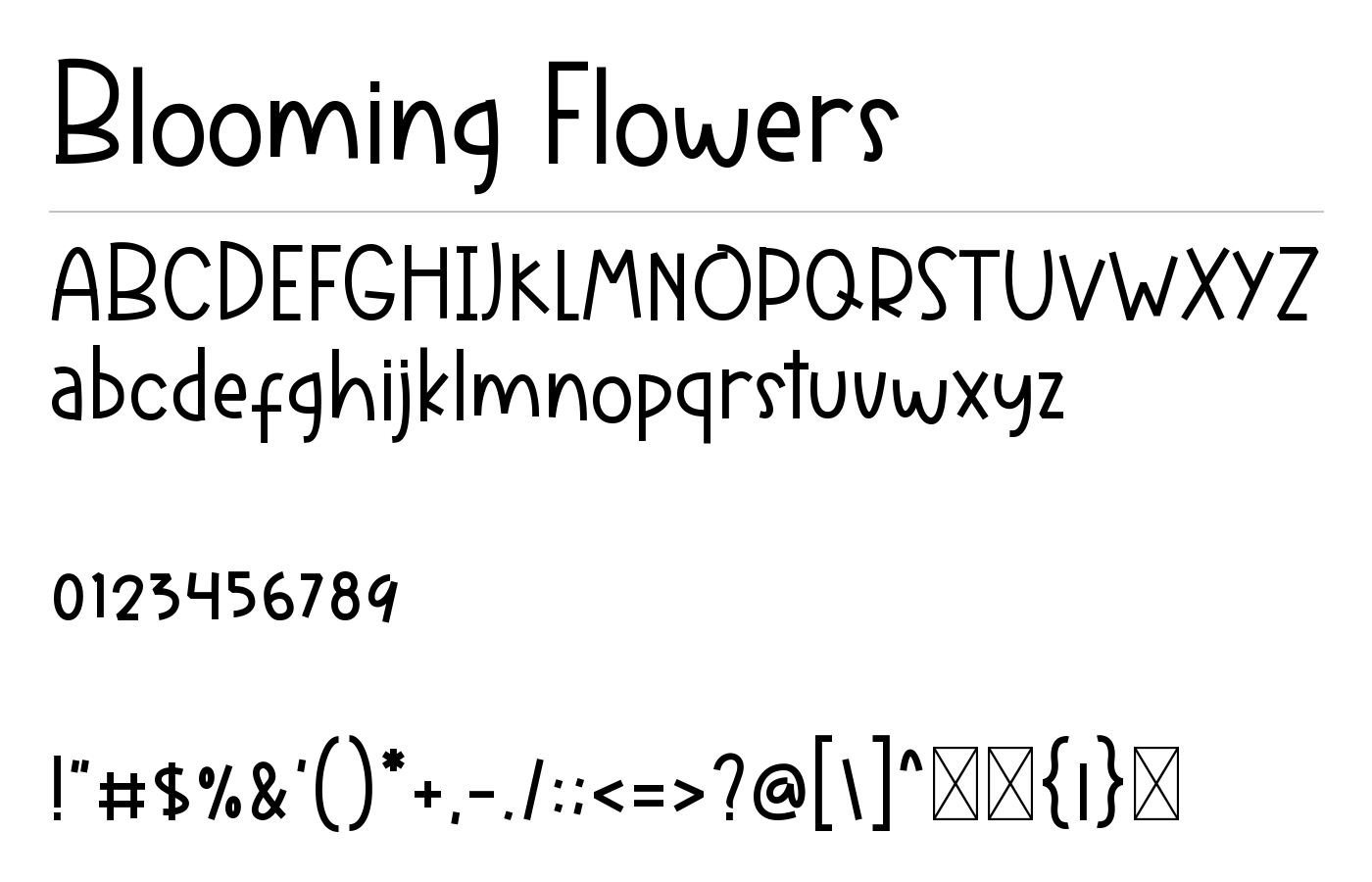
Blooming Flowers is a playful and casual sans serif font characterized by its tall, narrow letterforms and gently irregular strokes that mimic a hand-drawn style. This lightweight typeface features quirky details and a friendly personality, making it perfect for creative projects, children’s books, and informal branding. Its charming and approachable design works well for headlines, invitations, and any context needing a warm, whimsical touch.
Blooming Flowers Font
About Blooming Flowers Font